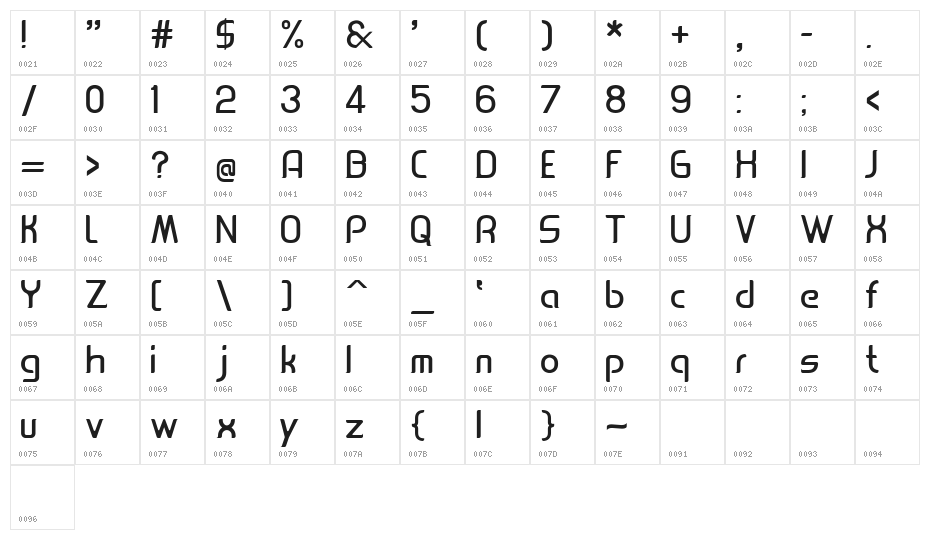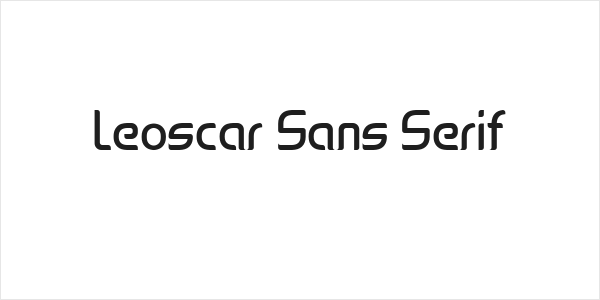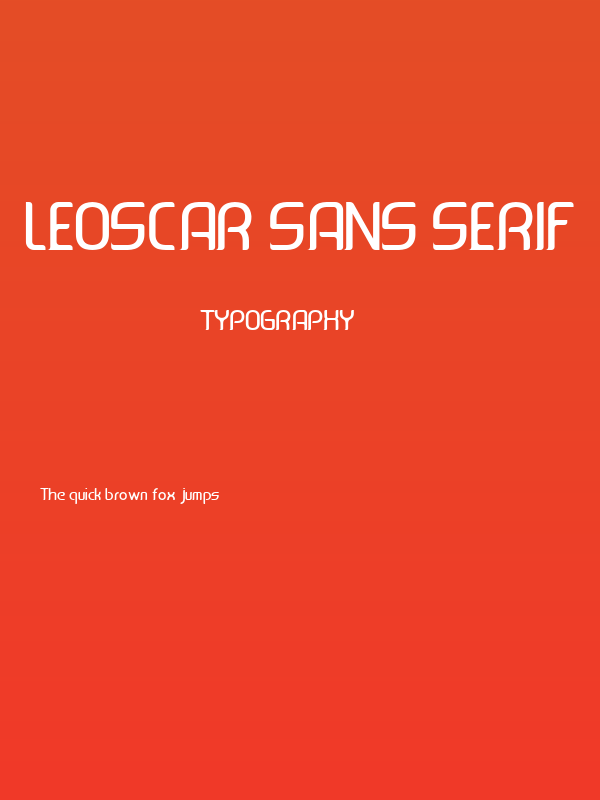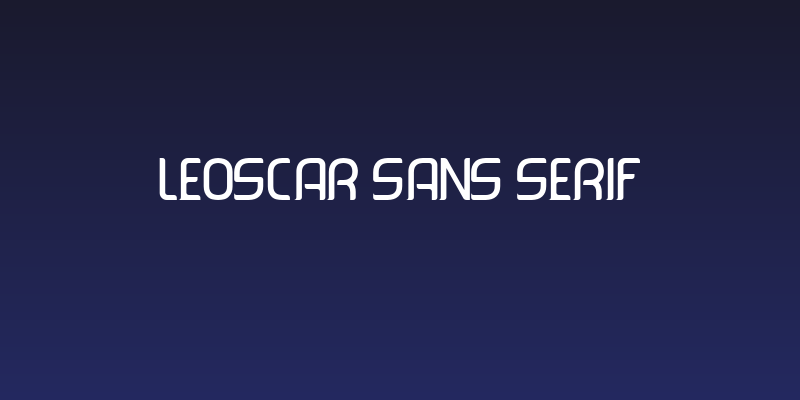
Leoscar Sans Serif Font
Leoscar Sans Serif Description
This font features a clean and modern sans-serif design with smooth, rounded edges and a geometric structure. The uppercase letters are bold and assertive, while the lowercase letters maintain a consistent style that complements the uppercase. The numbers are clear and legible, making them suitable for various applications. Special characters are well-integrated, adding to the font's versatility. The overall appearance is sleek and professional, making it ideal for contemporary design projects.
| Use Case | Headlines, Logos, Digital Interfaces |
| Proposed Projects | Ideal for branding, digital interfaces, signage, and editorial design. |